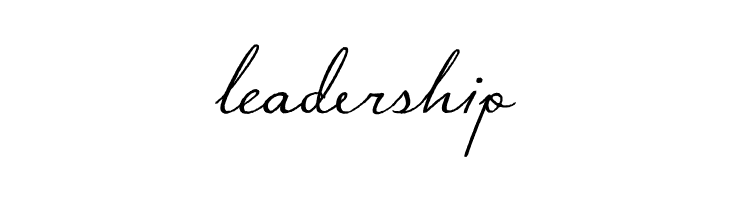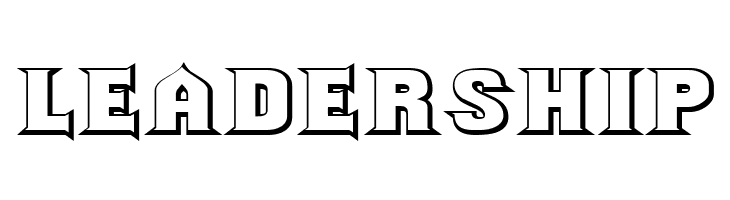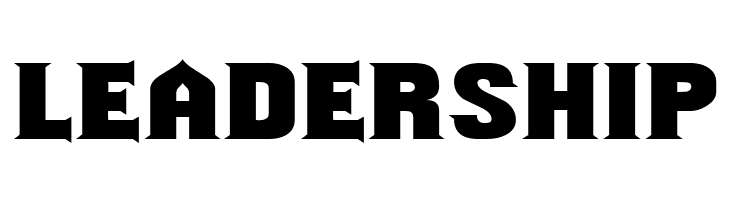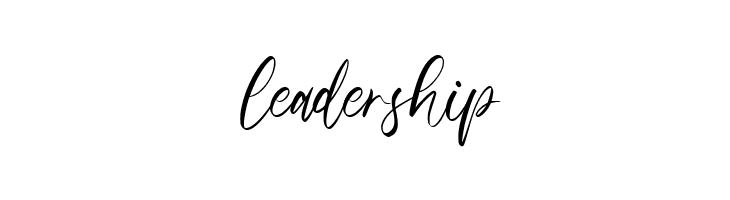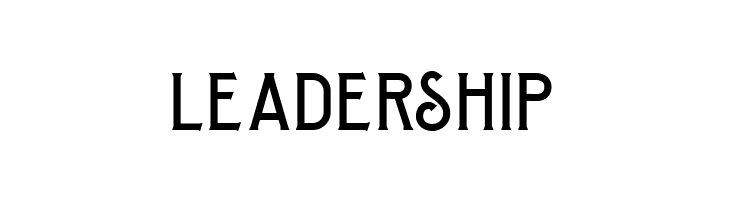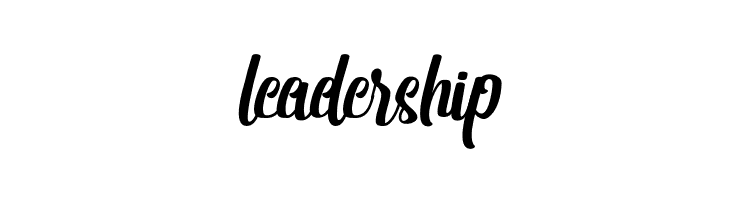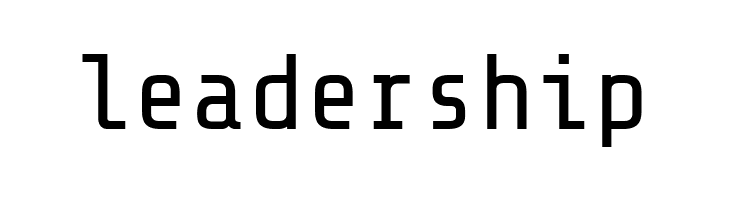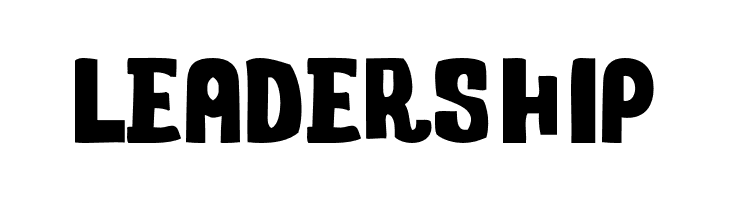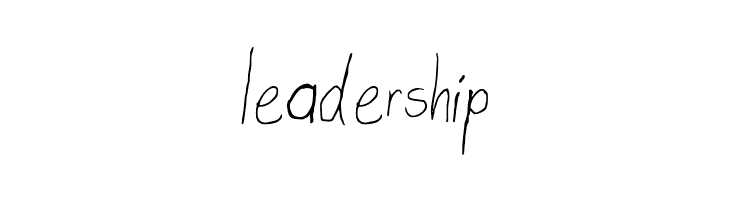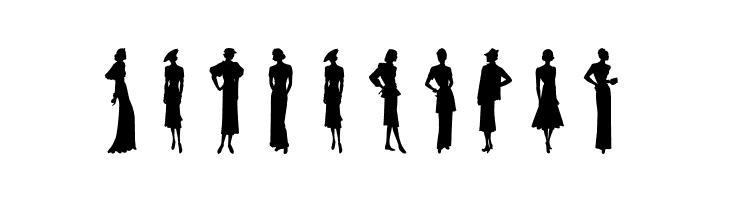
A modern, elegant script font with fluid, graceful letterforms and dynamic strokes.
A bold, brush script font with a dynamic and fluid style.
A playful, handwritten font with uneven strokes and a casual style.
A bold, playful, hand-drawn font with rounded, irregular characters.
( Ryan Williamson )
A bold, high-contrast serif font with pronounced serifs and a dramatic style.
( Ryan Williamson )
A bold serif font with sharp serifs and a modern classic style.
( Ryan Williamson )
A bold, high-contrast serif font with a dramatic and modern style.
( Ryan Williamson )
A refined and elegant font with thin strokes and subtle curves, perfect for sophisticated designs.
( Ryan Williamson )
A modern serif font with high contrast and sharp serifs, blending elegance with contemporary style.
( Ryan Williamson )
A thin, elegant serif font with high contrast and refined details.
A decorative font with curly serifs and playful swirls, offering a unique blend of elegance and creativity.
( Fonts by Sora Sagano - www.dotcolon.net )
A classic serif typeface with elegant curves and balanced proportions.
( fey design - Fey Design - www.creativemarket.com/feydesign )
A bold, slanted script font with high contrast and fluid connectivity.
A modern, geometric sans-serif font with uniform strokes and clear characters.
A bold, modern font with clean lines and strong presence.
A pixelated, monospaced font with a retro digital aesthetic.
A bold, geometric font with strong, angular characters.
( Alternika )
An ornate and decorative font with intricate detailing and bold characters.
A bold, flowing script font with elegant, connected letterforms.
( Fonts by www.carrois.com )
A modern, monospaced typeface with a technical and minimalist design.
( Phitradesign - Philip Trautmann - www.phitradesign-fonts.com )
A bold, playful handwritten font with rounded edges and thick strokes.
( Phitradesign - Philip Trautmann - www.phitradesign-fonts.com )
A bold, italicized handwritten font with smooth curves and a playful style.
( Fonts by Alex Squack - http://twitter.com/NoGoodToMe )
A bold, dynamic font with a vintage poster style.
A bold, playful font with rounded characters and a friendly style.
( Fonts by Chris Vile )
A bold, distressed font with a hand-drawn, grunge aesthetic.
( Kirsten Louise - www.kirstenlouisedesign.com )
A lively, handwritten script font with elegant, flowing characters.